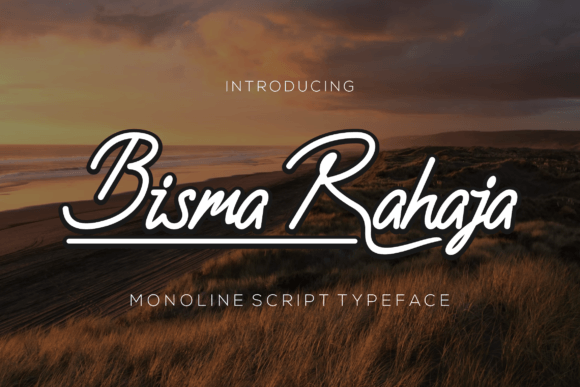
The Perfect Script: Unveiling the Bismarahaja Font
Do you remember that moment when you’re working on a project and you just can’t seem to find the right font to convey the feeling you want to evoke? The frustration is real, but what if I told you that there’s a solution to that problem? Meet the Bismarahaja Font, a stunning handwritten font that’s about to become your go-to choice for any creative project.
Designed to be beautiful, classy, and elegant, the Bismarahaja Font is perfect for a wide range of applications, from signature and stationery to logo design and magazine covers. With its modern feel, this font is a valuable addition to any designer’s toolkit, offering endless possibilities for creative expression.
Bismarahaja Font Key Features
- Font Family: Bismarahaja Font is a unique and elegant script font designed for various applications.
- Unique Characteristics: Features a distinctive, flowing script style with subtle nuances, making it perfect for creative and artistic applications.
Bismarahaja Font Review
Overall, I’m quite impressed with the Bismarahaja font. ✨ Its unique blend of modern and traditional elements makes it perfect for projects that require a touch of cultural flair. The font is well-suited for use in logos, branding materials, and even digital interfaces.
- ✨ Elegant and sophisticated design aesthetic
- ✨ Suitable for a wide range of projects and industries
- ✨ Highly customizable with a range of OpenType features
- ✨ Good legibility, even at smaller font sizes
- ⚠️ Limited font weight options, which can make it difficult to achieve the perfect level of contrast in certain designs
- ⚠️ May not be suitable for projects that require a very bold or dramatic font style
- ⚠️ Some users may find the font’s unique characteristics to be overwhelming or difficult to read at first glance
Despite its limitations, I believe the Bismarahaja font is a valuable addition to any designer’s toolkit. With its unique blend of modern and traditional elements, it’s perfect for projects that require a touch of cultural flair. While it may not be suitable for every project, I highly recommend giving it a try and seeing how it can elevate your designs.
Getting the Most Out of Bismarahaja Font
For optimal results, use Bismarahaja Font in bold or italic styles to add emphasis.
Experiment with different font sizes to create visual hierarchy.
Combine Bismarahaja Font with other fonts for a unique and eye-catching design.
Bismarahaja Font is ideal for:
- Artistic and creative projects.
Alternatives to Bismarahaja Font for Designers
Playfair Display is an elegant and luxurious serif font ideal for use in high-end branding, luxury products, and special occasions. It is perfect for creating a sophisticated and refined look. Playfair Display is more formal and traditional compared to Bismarahaja Font, which is more playful and modern.
Great Vibes is a beautiful and elegant script font suitable for use in invitations, weddings, and other special events. It adds a touch of sophistication and romance to any design. Great Vibes is more cursive and flowing compared to Bismarahaja Font, which is more geometric and modern.
Alex Brush is a calligraphic script font that exudes elegance and sophistication. It is perfect for use in branding, packaging, and other design projects where a touch of luxury is needed. Alex Brush is more handwritten and organic compared to Bismarahaja Font, which is more digital and geometric.
Carolyna Pro is a modern and elegant serif font that is perfect for use in branding, packaging, and other design projects where a touch of sophistication is needed. It is more formal and traditional compared to Bismarahaja Font, which is more playful and modern. Carolyna Pro is also more versatile and can be used in a wide range of design projects.